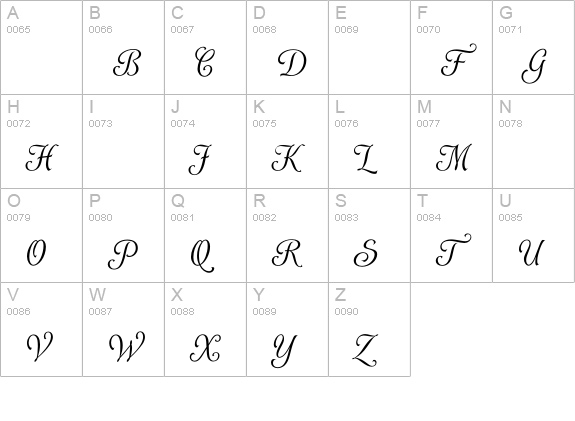
AlysMedium Font Details
AlysMedium font is a versatile and modern typeface that exudes elegance and sophistication. With its sleek lines and balanced proportions, this font is perfect for a wide range of design projects, from branding to editorial design. The AlysMedium font strikes the perfect balance between professionalism and creativity, making it a great choice for both corporate and creative endeavors. What sets AlysMedium font apart is that it is available for free download at FontsMarket.com. This means that you can easily access and use this high-quality font in your projects without any cost, making it a valuable asset for designers and creatives looking to elevate their work. Whether you're working on a website, a poster, a logo, or any other design project, AlysMedium font will add a touch of sophistication and style that will set your work apart. Download AlysMedium font today and take your designs to the next level.